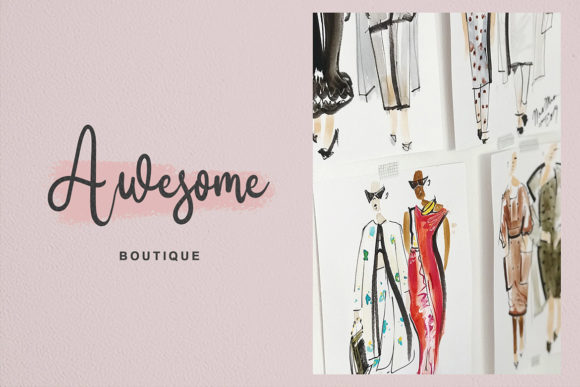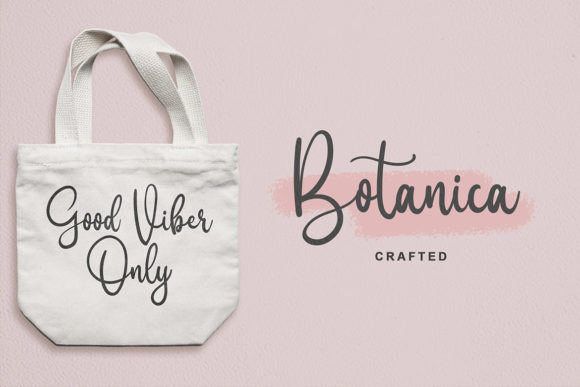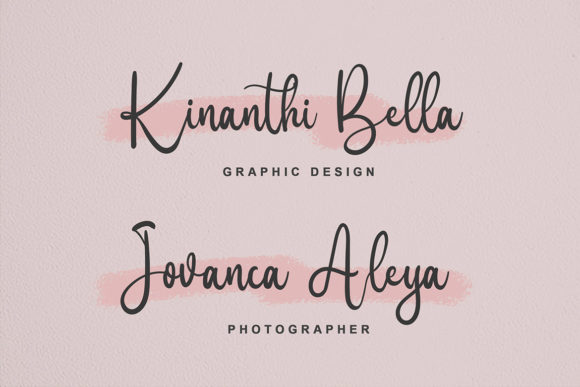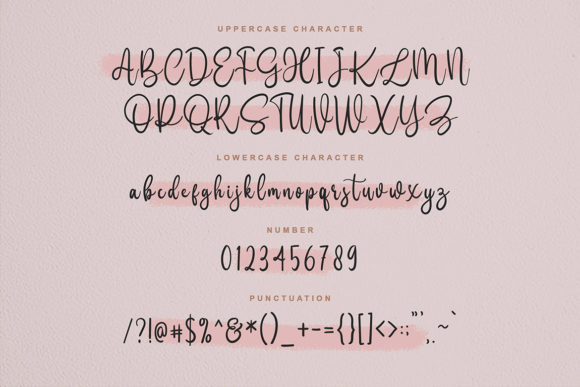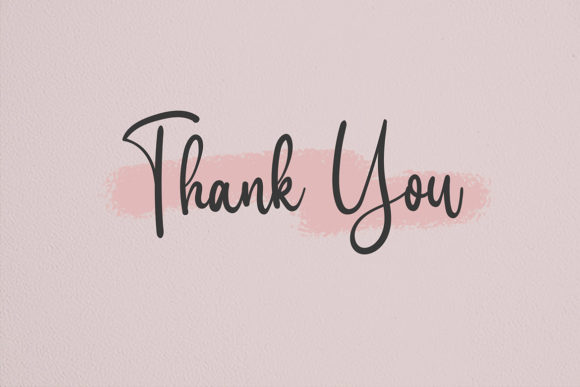
Santya Font
About Santya Font
Santya is a brand new lovely script font ready for your new projects.
Get inspired by its authentic feel and use it to create gorgeous wedding invitations, beautiful stationary art, eye-catching social media posts, and cute greeting cards.